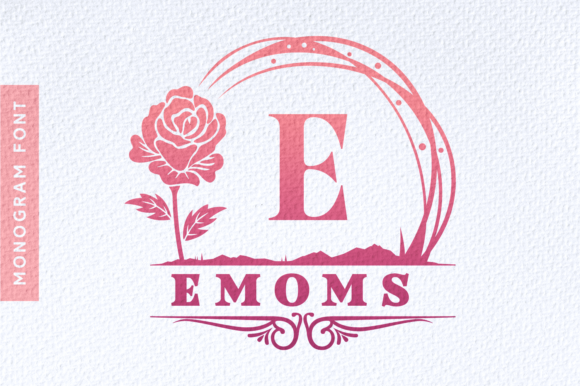
Behold, Emoms Font – A Treasure Trove of Enchantment for Your Creative Endeavors!
Step into the realm of visual artistry with Emoms Font, a decorative font that will ignite your imagination and transform your designs into captivating masterpieces. Let your creativity soar as you explore the realm of possibilities with this whimsical and detailed font, meticulously crafted by the talented Situjuh.
Unleash the Magic of Emoms:
* Enchant Your Designs: Cast a spell of elegance and sophistication upon your projects with Emoms Font, a font that weaves a tapestry of visual intrigue. Its characters, adorned with delicate flourishes and graceful curves, will elevate your designs to new heights of beauty, leaving a lasting impression on your audience.
* A Symphony of Styles: Emoms Font offers a versatile ensemble of styles, allowing you to effortlessly adapt it to a myriad of creative pursuits. Whether you're designing logos, branding materials, wedding invitations, or greeting cards, Emoms Font will effortlessly complement your vision, adding a touch of magic to every creation.
* Express Your Uniqueness: Infuse your designs with a captivating aura of individuality using Emoms Font. Its distinctive letterforms, adorned with intricate details, will set your work apart from the ordinary, ensuring that your creations stand out from the crowd and captivate the attention of all who behold them.
* Embark on a Creative Odyssey: Emoms Font beckons you to embark on a creative odyssey, inviting you to transcend the boundaries of convention and delve into a world of limitless possibilities. Let your imagination run wild as you explore the endless applications of this remarkable font, transforming your ideas into tangible works of art.
Unleash the Potential Within:
* Ignite Your Passion: Emoms Font is more than just a font; it's a catalyst for igniting your creative passion. Unleash the artist within you as you immerse yourself in the boundless world of visual expression, allowing Emoms Font to guide you toward extraordinary design achievements.
* Create with Confidence: Emoms Font empowers you with the confidence to bring your creative visions to life. Its user-friendly PUA encoding ensures effortless access to a treasure trove of glyphs and swashes, allowing you to effortlessly add intricate details and flourishes to your designs, elevating them to new heights of visual excellence.
* Leave an Indelible Mark: With Emoms Font as your creative companion, you'll leave an indelible mark on the world of design. Its captivating aesthetics and versatility will ensure that your creations resonate with audiences, leaving a lasting impression that will endure for years to come.